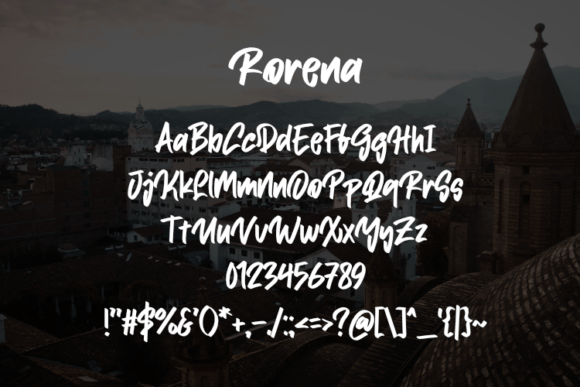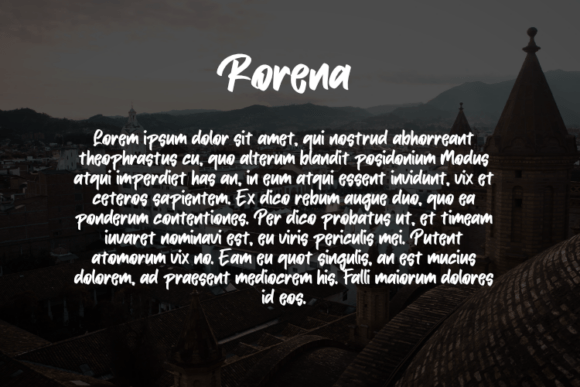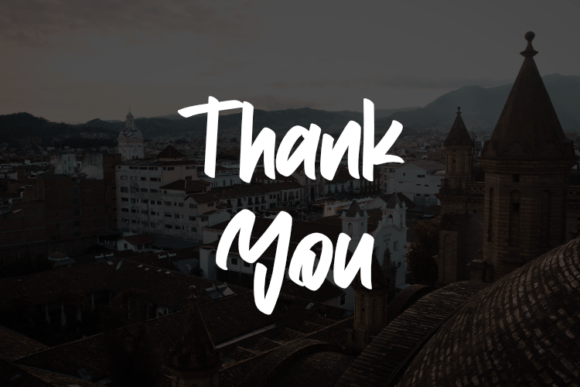
Introduction to Rorena Font
Introducing “Rorena”, a dynamic and versatile font that finds its perfect space in the world of clothing and product design.
This enchanting typeface effortlessly fits into any design landscape, enhancing the level of creativity and artistry Open to every sort of design application, “Rorena” comes in an easily adaptable otf file, promising seamless compatibility with all kinds of software platforms.